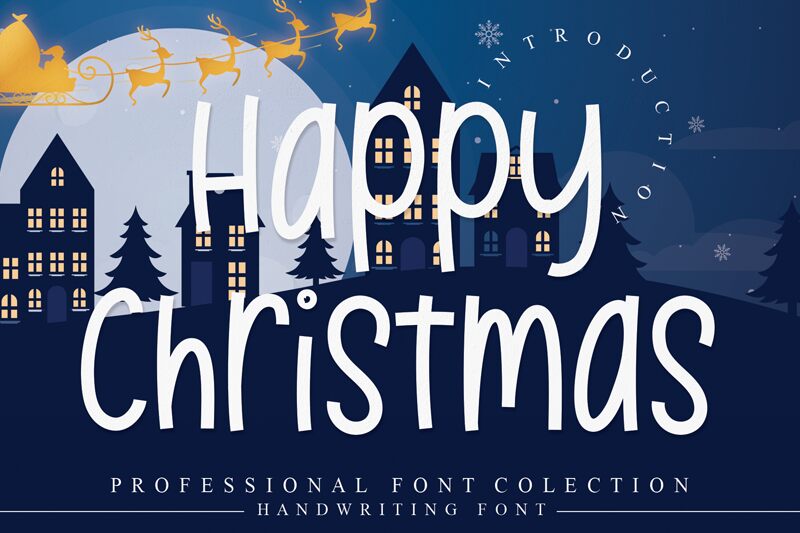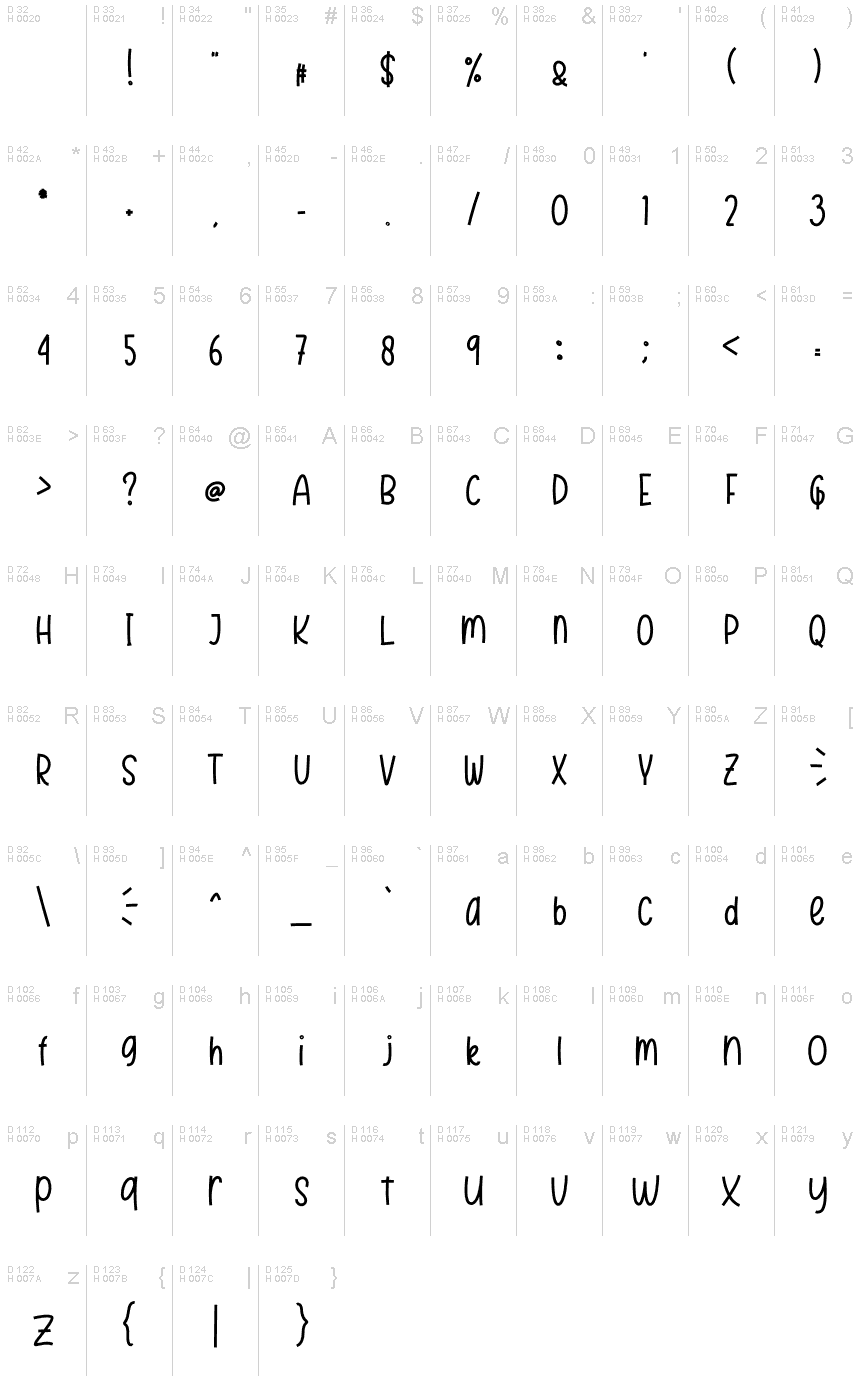
Happy Christmas
Happy Christmas font is a stunning script font designed by Font3.
the latest style letters are perfect for wall displays, wedding invitations, social media post logos, advertisements, product packaging, product designs, labels, photography, watermarks, invitations, stationery, and any project that requires taste handwriting.